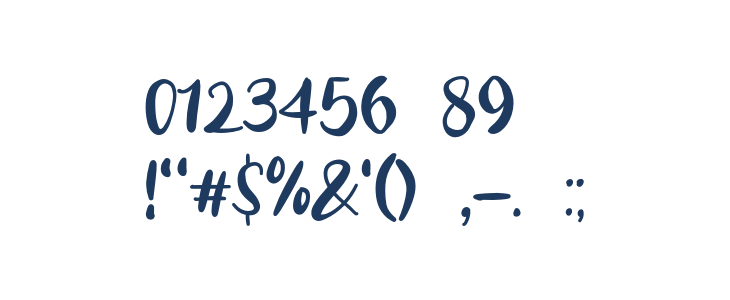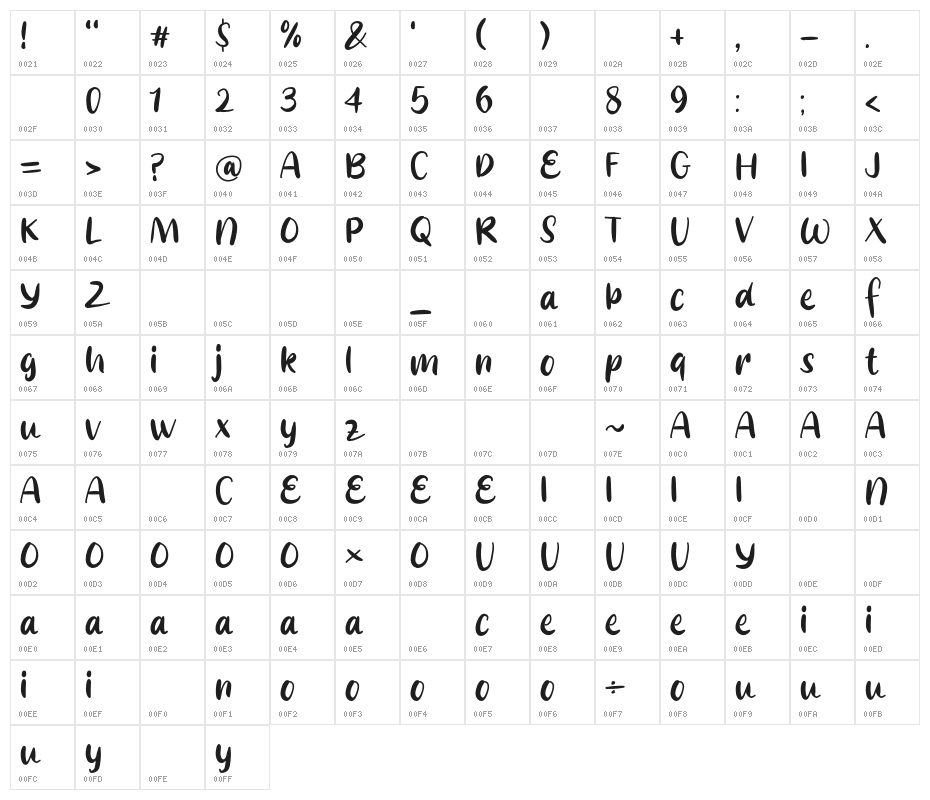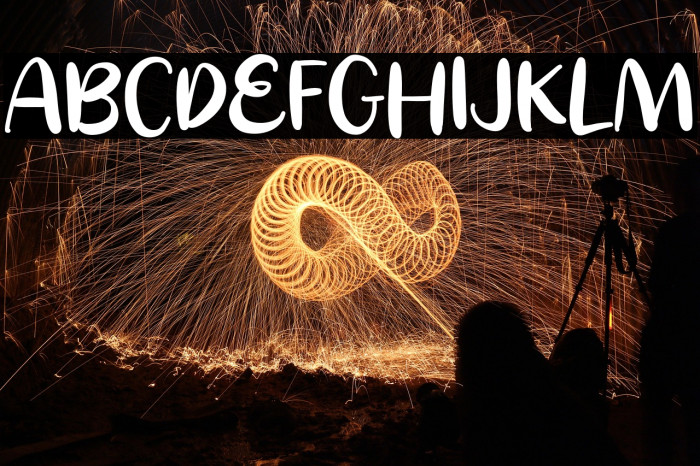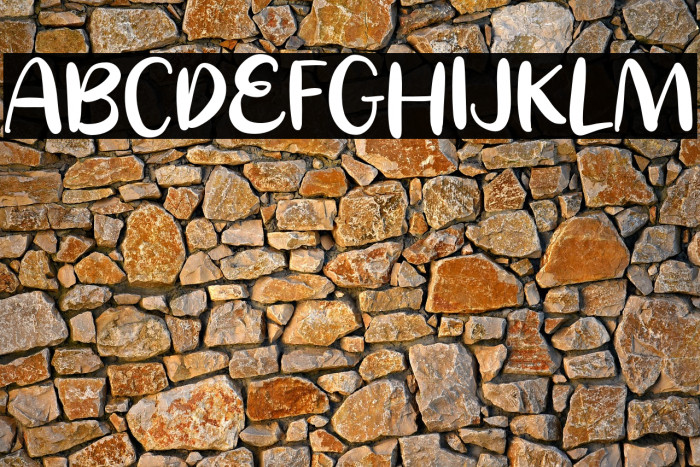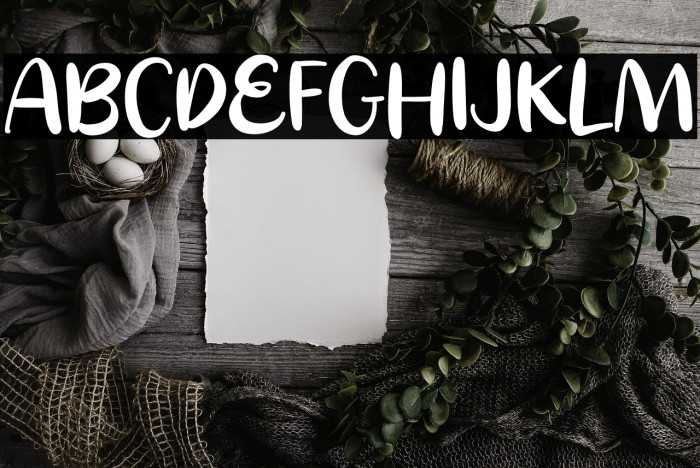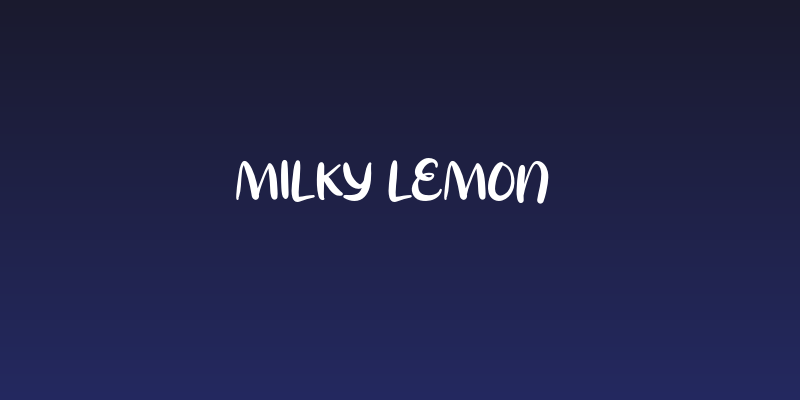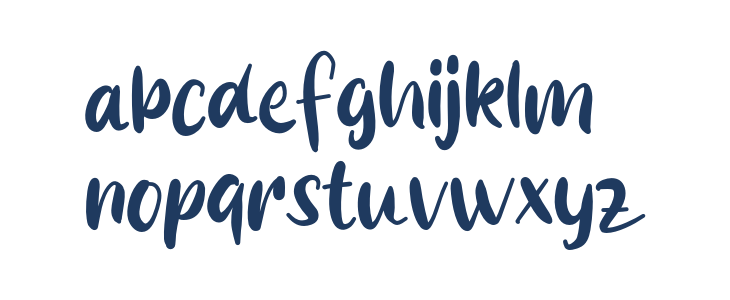
Milky Lemon Font
Milky Lemon Description
This font features a playful and energetic handwritten style, characterized by its bold and fluid strokes. The letters have a casual, yet artistic flair, with varying thickness that adds a dynamic feel to the text. The uppercase and lowercase letters maintain a consistent flow, while the numbers and special characters complement the overall design with their rounded and approachable forms. This font's lively appearance makes it suitable for projects that require a personal and friendly touch.
| Use Case | Logos, Headlines, Posters |
| Proposed Projects | Ideal for greeting cards, invitations, branding, and social media graphics. |